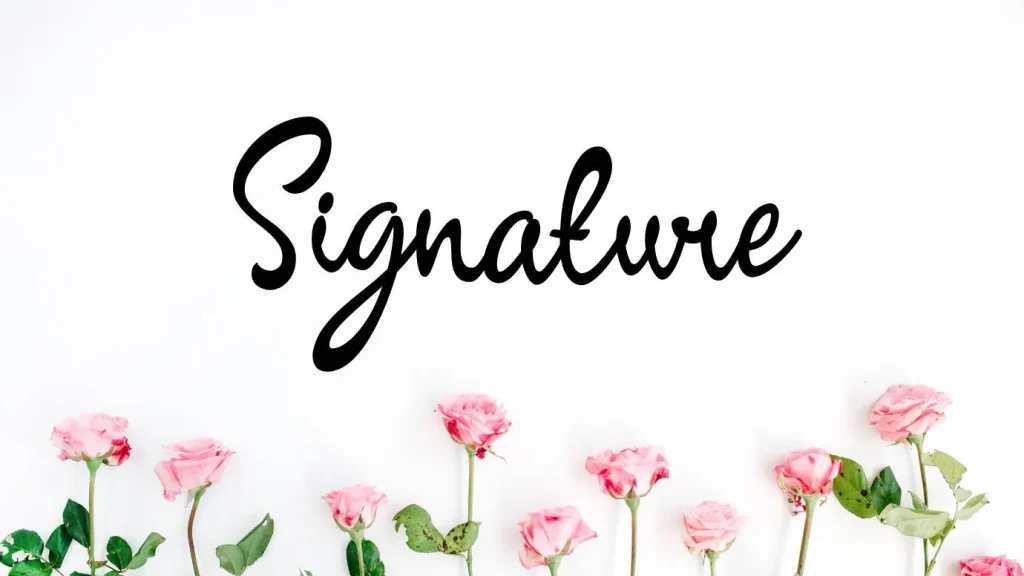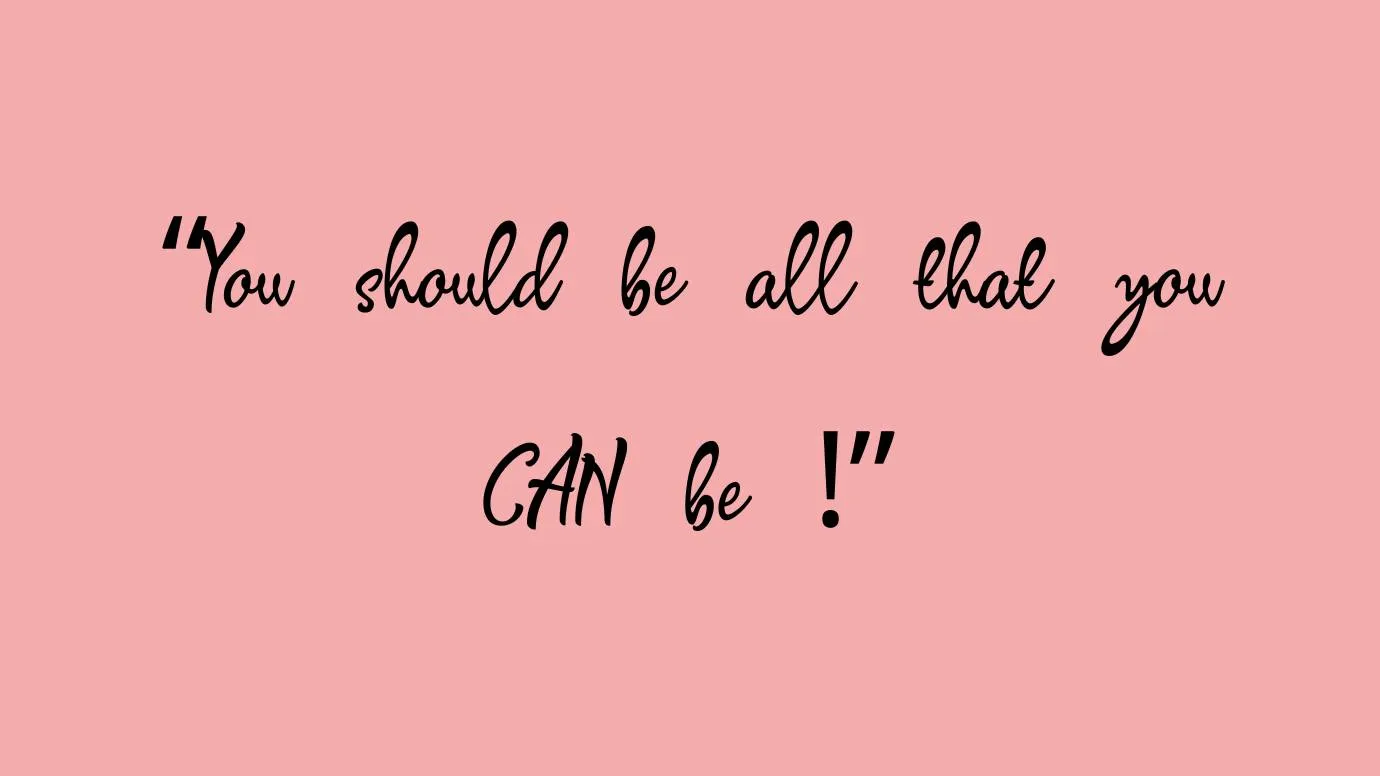
Script typeface has a nice unique style. Signature Font can make unique and attractive designs for your project. Many people have already used this font in their projects and got appreciation from the viewer.
In this typeface, each character has a beautiful design to create stunning content. The free version is also available here on our website. The 106 characters in this typeface, have 78 glyphs and include alphabets, digits, and special characters.
You can import this style in a CSS file to create fun designs. This typeface has great readability. The font is beautifully designed and has an attractive appearance it also displays flexibly formed letters due to their strong curves. The pairing of this typeface with the nemo font opens up opportunities to craft exceptional displays.
If you are looking for a font with lots of traits, this lettering style will be a flawless choice. To make a design that is both exclusive and attention-grabbing, you can pair this font with any other typeface.
While using this style you can create art book designs and logo designs you can make your website design more beautiful with this design.
Signature Font is a script typeface that has a nice and attractive character set of alphabets.